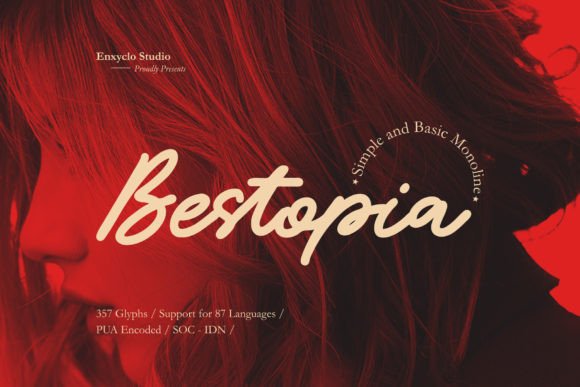
Introducing Bestopia Font - The Epitome of Elegance and Charm for Your Creative Endeavors
Step into the world of Bestopia, a script font that embodies grace, sophistication, and timeless beauty. This exquisite handwritten font is a masterpiece crafted by Enxyclo, renowned for their dedication to creating captivating digital masterpieces. Bestopia Font is not just a collection of letters and symbols; it's an invitation to embark on a journey of artistic expression.
With its delicate strokes, elegant curves, and harmonious balance, Bestopia Font adds a touch of refinement to any design project. Its characters dance across the page, evoking a sense of artistry and romance. Whether you're designing wedding invitations, crafting heartfelt letters, or creating captivating social media posts, Bestopia Font elevates your words, infusing them with an aura of elegance that captivates and enchants.
Immerse yourself in the world of Bestopia Font and discover a world of creative possibilities. Its versatility knows no bounds, making it the perfect choice for a wide range of projects. From elegant logos and branding designs to eye-catching posters and brochures, Bestopia Font adapts seamlessly to your vision, enhancing it with a touch of sophistication.
Indulge in the beauty of Bestopia Font and let your creativity flourish. Its flowing lines and graceful curves add an enchanting touch to any design, leaving a lasting impression on your audience. Whether you're a seasoned designer or just starting your creative journey, Bestopia Font is your perfect companion, guiding you towards design excellence.